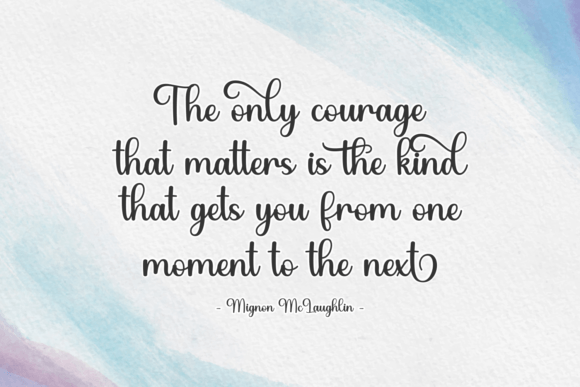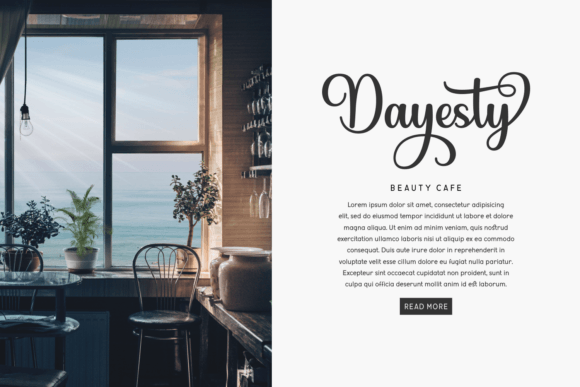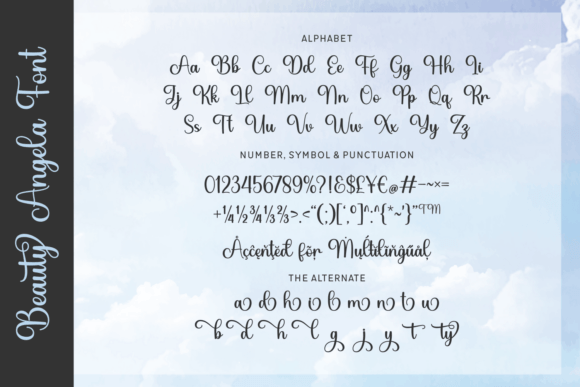
The Perfect Font for Your Next Masterpiece
Have you ever stared at a blank page, struggling to find the perfect font to match your creative vision? You know the feeling – the cursor blinks impatiently as you search for that elusive combination of style and sophistication. Well, say hello to Beauty Angela Font, the stunning script font that’s about to become your new best friend.
This elegant font is designed to elevate your designs to new heights, whether you’re crafting wedding invitations, logos, or upscale stationery. With its flowing curves and intricate details, Beauty Angela Font adds a refined and graceful touch that’s sure to impress. Whether you’re a seasoned designer or just starting out, this versatile font is a valuable addition to your toolkit – and it shines just as beautifully in both print and digital formats.
Beauty Angela Font Key Features
- Font Family: Beauty Angela Font
- Font Styles: Regular, Bold, Italic, Bold Italic
- Unique Characteristics: Hand-drawn, elegant, and sophisticated design with a touch of femininity
Designer Review: Beauty Angela Font
I recently had the chance to work with the Beauty Angela Font, and here’s my honest review.
- ✨ Elegant and sophisticated aesthetic: Beauty Angela Font has a classic and refined feel that makes it perfect for high-end fashion, beauty, or luxury brands.
- ✨ Versatility: The font is available in multiple weights, from light to bold, allowing for a wide range of styling options.
- ✨ Beautiful script: The script variant of the font is a standout feature, adding a touch of sophistication and elegance to any design.
- ⚠️ Limited language support: Beauty Angela Font may not support all languages, which could be a concern for global brands.
- ⚠️ Not ideal for body text: While the font is perfect for headlines and titles, it may not be the best choice for body text due to its elegant, cursive nature.
Overall, Beauty Angela Font is a beautiful and sophisticated font that’s perfect for high-end brands looking to make a statement. While it has some limitations, it’s definitely worth considering for the right project. With its elegant aesthetic and versatility, it’s sure to elevate any design.
Tips for Getting the Most Out of Beauty Angela Font
Use the Beauty Angela font for headings and titles to create a bold and eye-catching effect. Pair it with a clean and simple font for body text to create a balanced and elegant design. Experiment with different font sizes and colors to find the perfect combination for your design.
The Beauty Angela font is ideal for use in wedding invitations, greeting cards, and other formal events. It’s also great for use in branding and logo design, as it creates a professional and elegant look. Additionally, it can be used in digital design, such as website headers and footers, to create a consistent and stylish look.